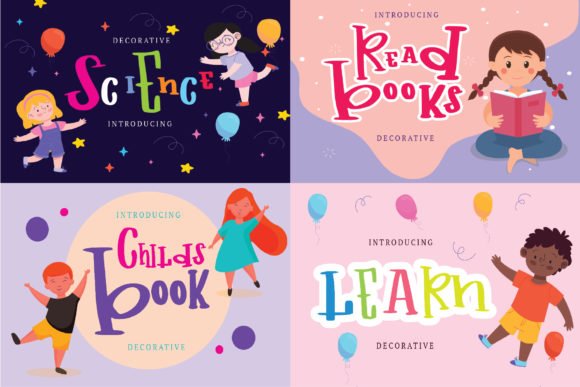
Designing for the Little Ones: The Magic of Childs Book Font
Do you remember the thrill of holding a favorite childhood book, the smell of fresh paper and ink filling the air, and the sound of a soothing voice reading the words? For many of us, that’s a moment that never fades, and it’s a moment that designers aim to recreate when working on projects for kids.
Enter Childs Book Font, a delightful display font that captures the essence of childhood wonder. This playful and quirky font is specifically designed for school and kids projects, making it the perfect choice for anyone looking to create a friendly and approachable atmosphere.
As a designer, you know the value of a great font – it can make or break the tone of a project. With Childs Book Font, you’ll have a versatile tool at your disposal that’s sure to delight kids and parents alike.
Key Features of Childs Book Font
- Size: The font comes in a single weight, but it’s designed to be highly legible and versatile, making it suitable for use in various sizes, from 8pt to 24pt.
- Resolution: The font is designed to be high-resolution, making it suitable for use in digital media, such as e-books, websites, and mobile apps, at resolutions up to 300 DPI.
- Unique Characteristics: Childs Book Font features a unique, hand-drawn design that evokes a sense of nostalgia and whimsy, making it perfect for children’s books, educational materials, and other projects that require a playful tone.
- Character Set: The font includes a comprehensive character set, including Latin, Greek, and Cyrillic alphabets, as well as a range of punctuation and symbol characters.
- Language Support: Childs Book Font supports a wide range of languages, including English, Spanish, French, German, Italian, and many others, making it a versatile choice for global projects.
Childs Book Font Review
As a designer, I was excited to dive into the “Childs Book Font” and see how it would perform in various design scenarios. Overall, I have mixed feelings about this font.
- The font’s playful and whimsical feel is perfect for children’s books, educational materials, and other related projects.
- The font’s character set is extensive, making it suitable for a wide range of applications.
- The font’s weight and size variations provide a good level of customization options for designers.
- The font’s readability can be compromised in smaller text sizes, making it less suitable for body text in some cases.
- The font’s lack of ligatures and kerning can result in awkward spacing and letter combinations.
- The font’s design, while playful, may not be suitable for all audiences, particularly in formal or professional contexts.
Overall, I would say that the “Childs Book Font” is a solid choice for projects that require a playful, child-friendly font. However, its limitations may make it less suitable for more complex or formal design projects.
Childs Book Font: A Practical Application Guide
Childs Book Font is ideal for children’s book illustrations, nursery rhymes, and educational materials. To get the most out of it, use it in conjunction with whimsical illustrations and bright colors. Experiment with different font sizes and styles to create a playful and engaging atmosphere.